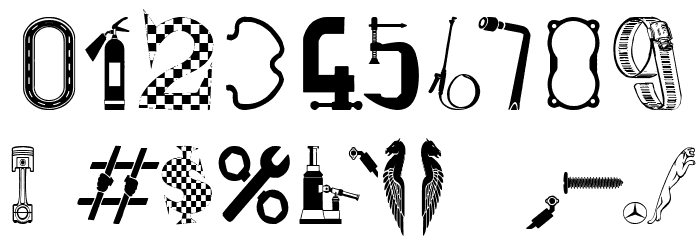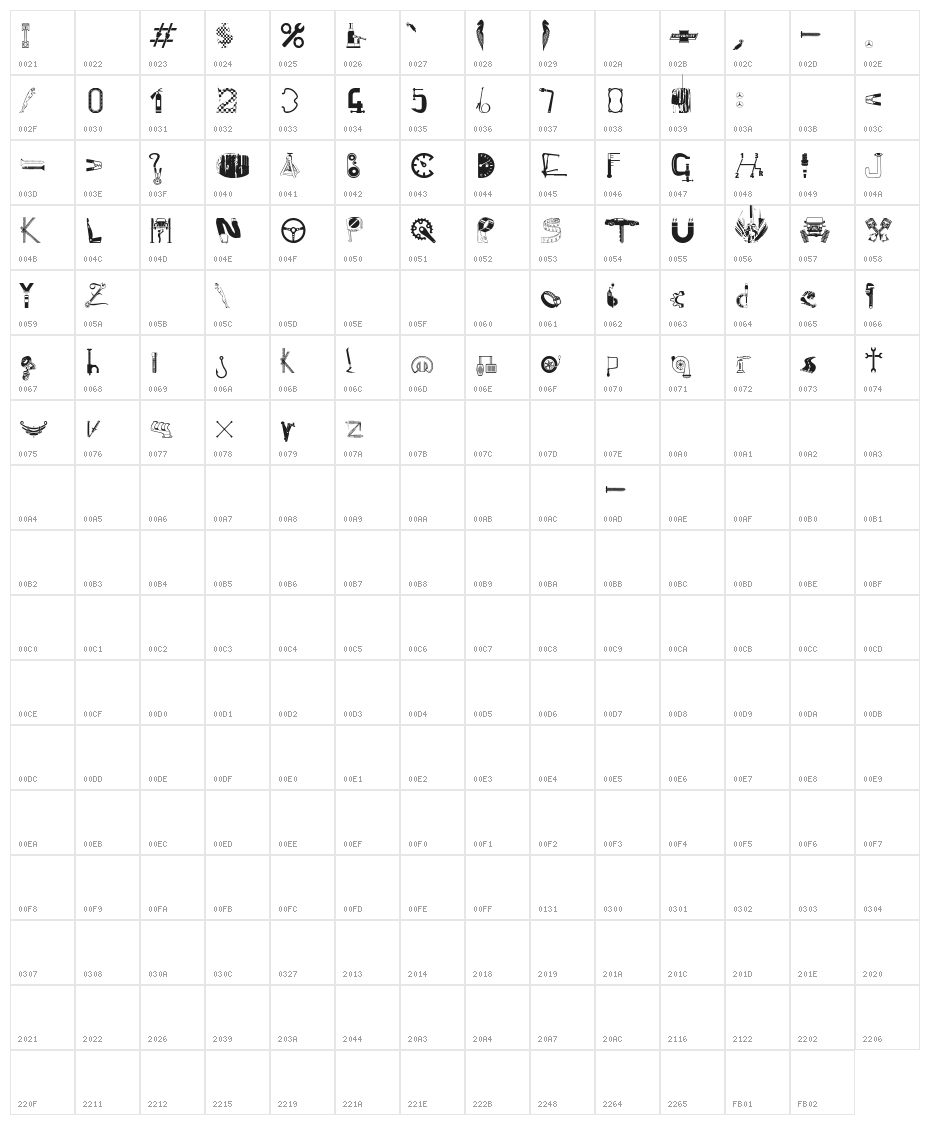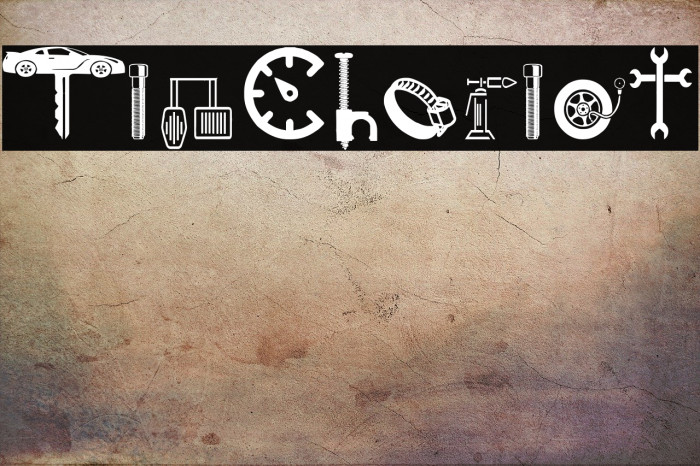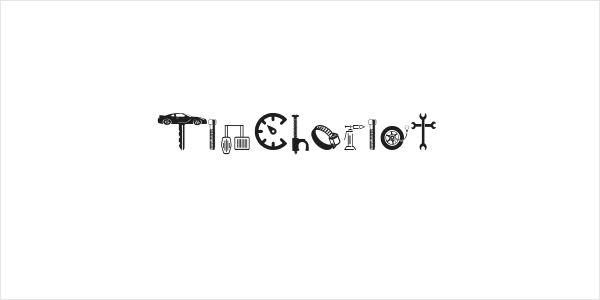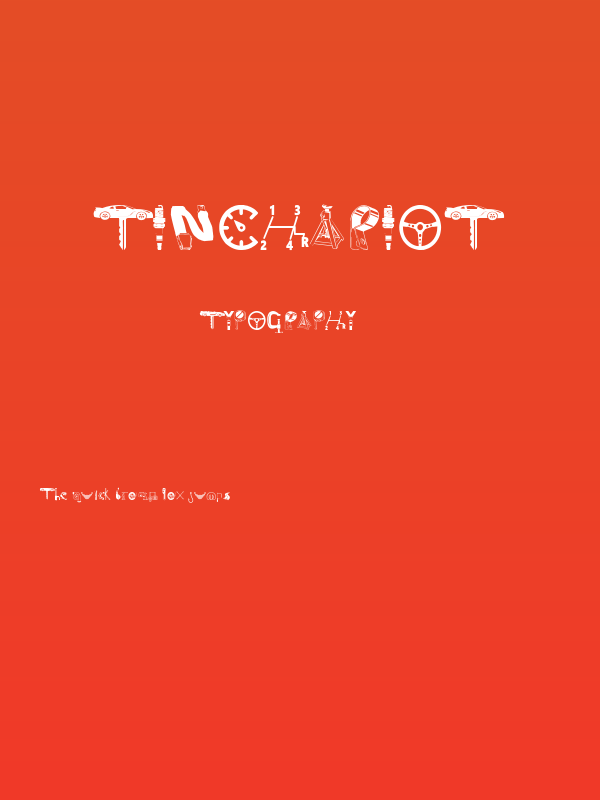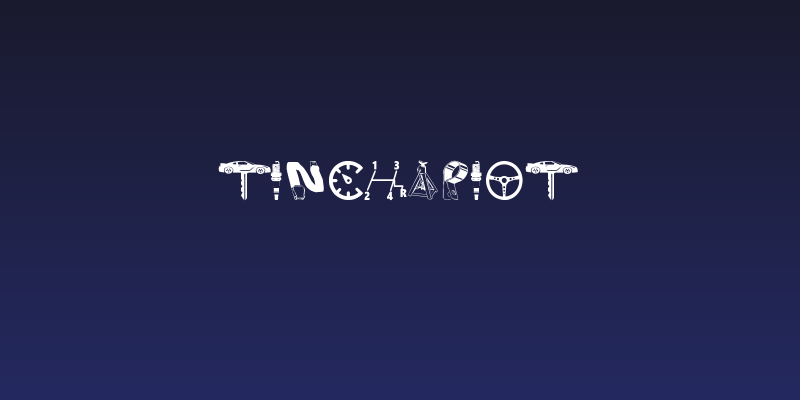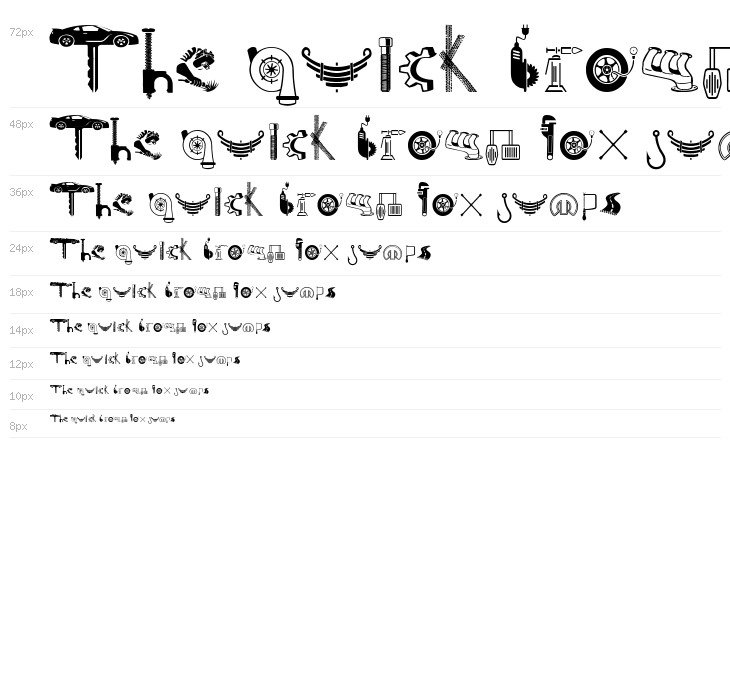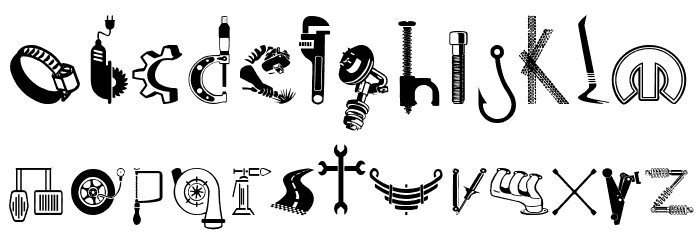
TinChariot Font
TinChariot Description
This font is a highly creative and decorative typeface that incorporates various mechanical and automotive elements into each character. Each letter and number is uniquely designed to resemble parts of vehicles, tools, and machinery, giving it a playful and industrial aesthetic. The characters are detailed and intricate, with elements like gears, wrenches, and car parts integrated into their forms. This font is perfect for projects that require a bold and thematic approach, particularly those related to automotive or mechanical themes.
| Use Case | Logos, Posters, Thematic Designs |
| Proposed Projects | Ideal for automotive branding, mechanical-themed posters, creative logos, and industrial design projects. |